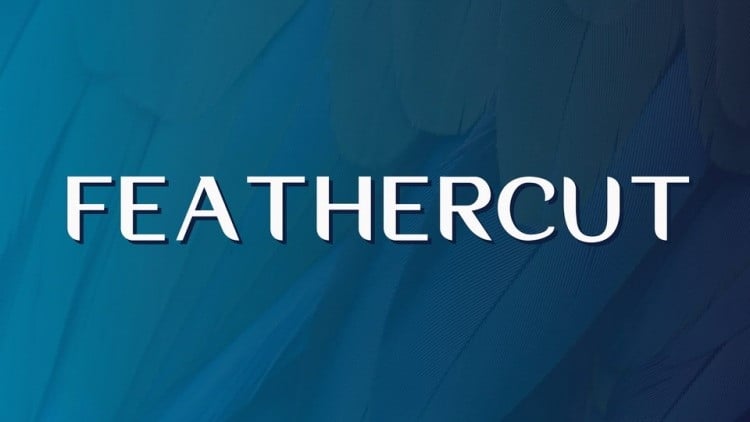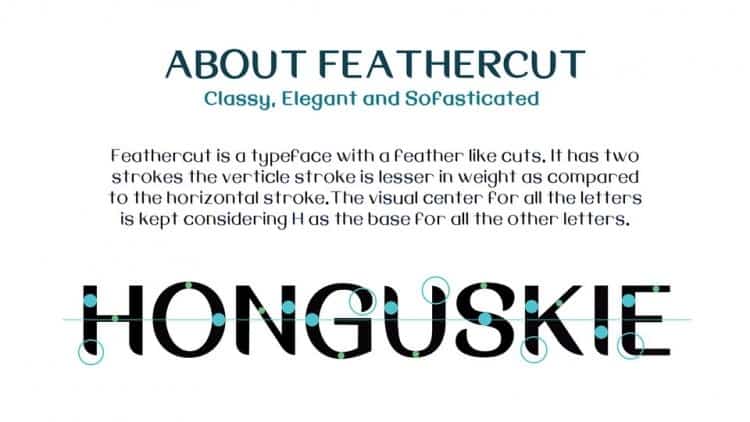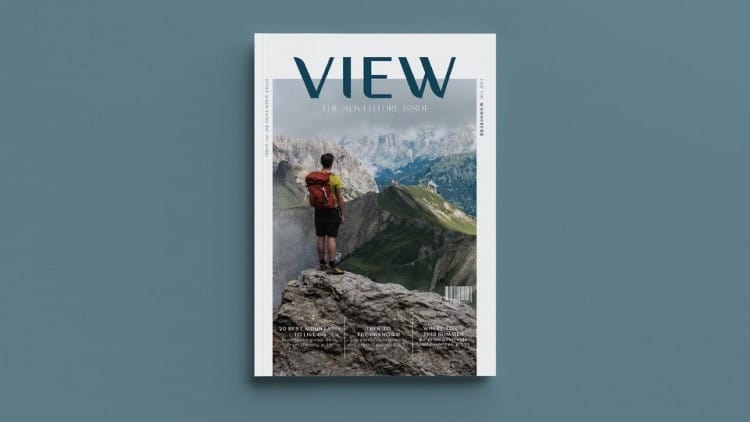
Feathercut Sans Serif Font is a sophisticated ,gorgeous sans serif font created by Rutwa Maharaul. It’s a typeface with feather-like cuts. The typeface has medium contrast: the vertical stroke is lesser in weight than the horizontal. The visual center for all letter is kept considering H as the base for all the other characters.